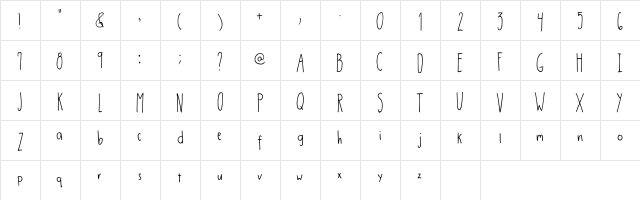
Drm Handwritten Thin Regular
Design Context for Drm Handwritten Thin Typeface
Drm Handwritten Thin flows with the natural rhythm of handwritten lettering, making it ideal for designs that call for warmth and personal expression. The delicate stroke weight brings airiness and refinement to layouts.
Font Pairing: Combine Drm Handwritten Thin with a simple geometric sans for maximum contrast — the tension between flowing curves and clean structure is a classic typographic pairing.
Pro Tip: Use Drm Handwritten Thin for short runs of text — names, titles, or taglines. Extended body copy in script faces tires the eye quickly.